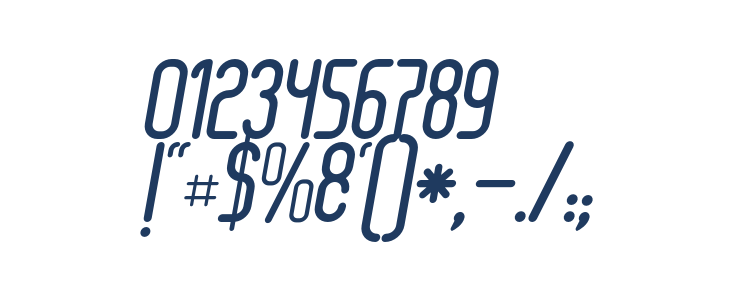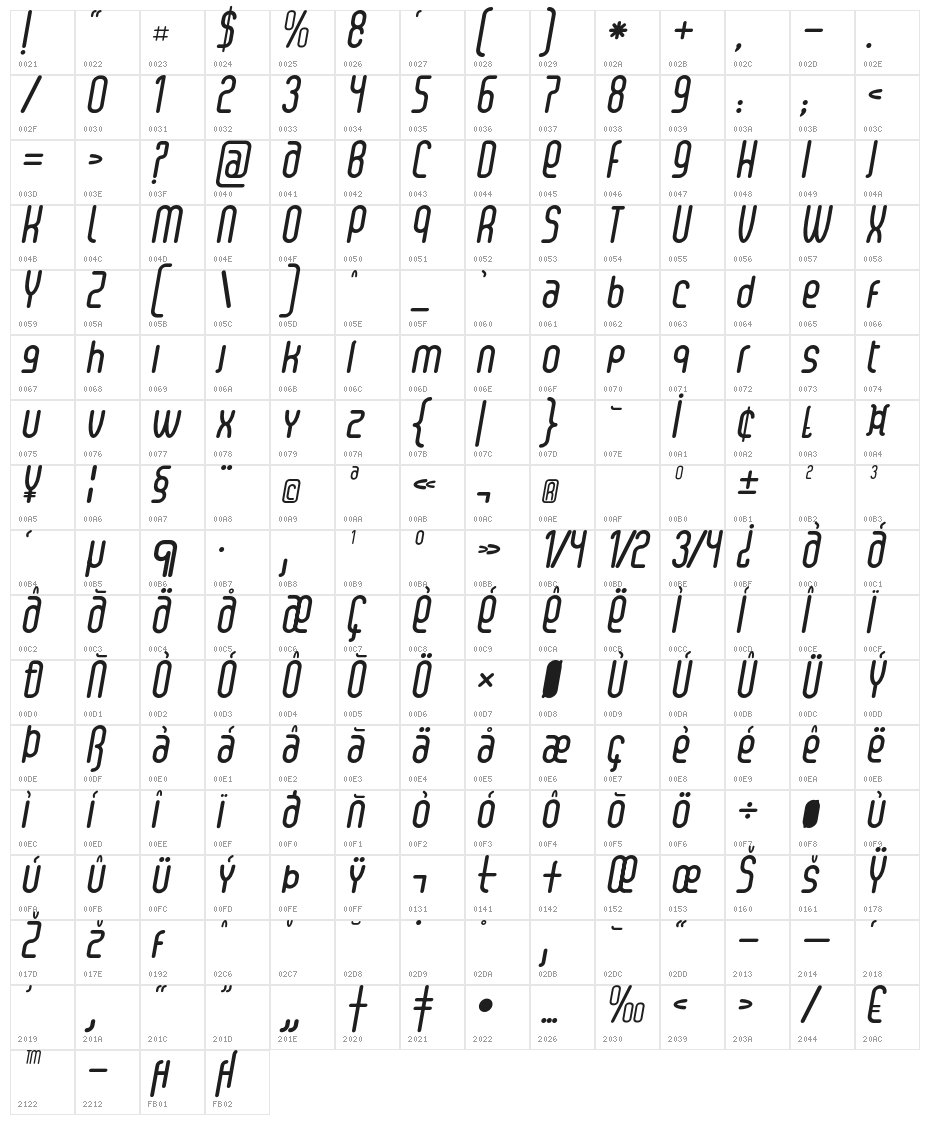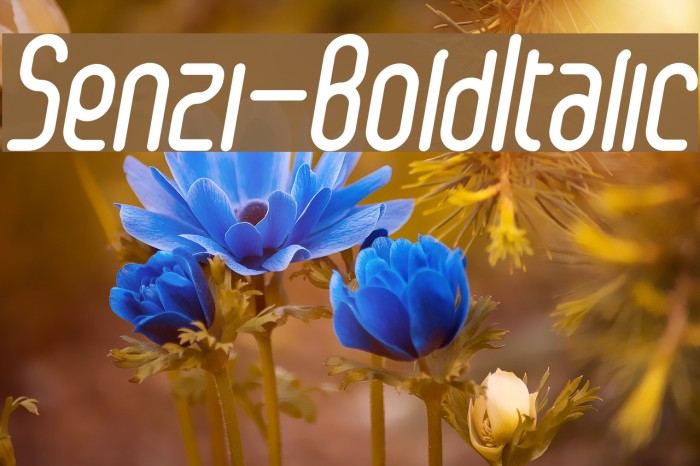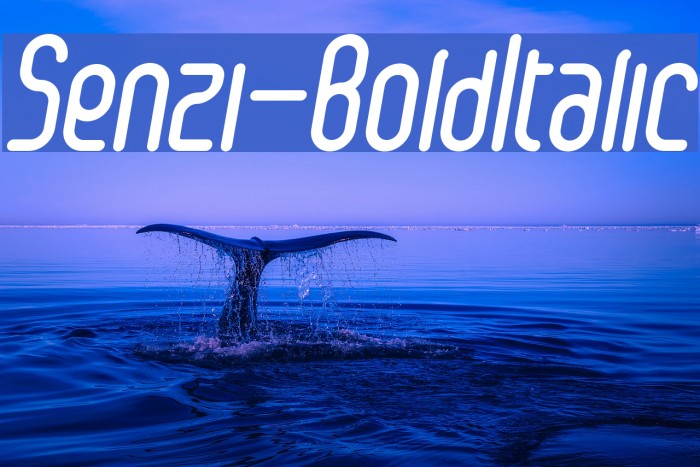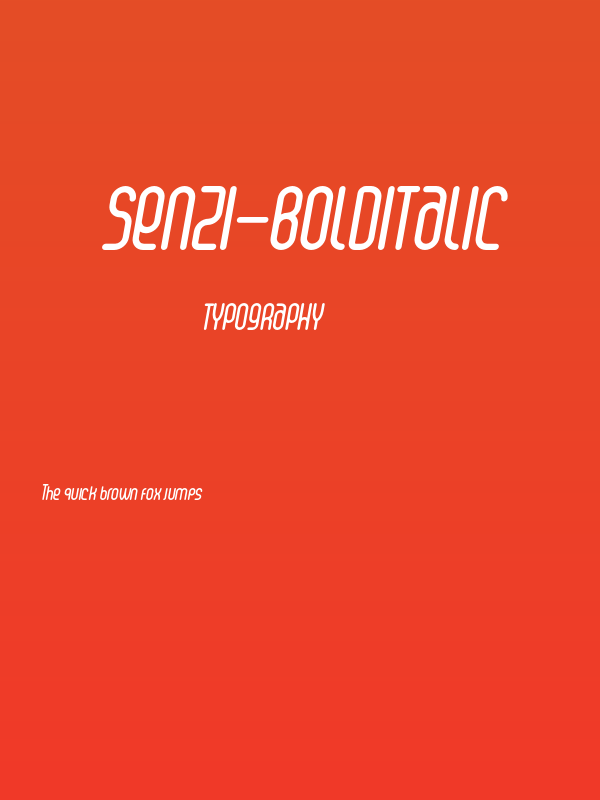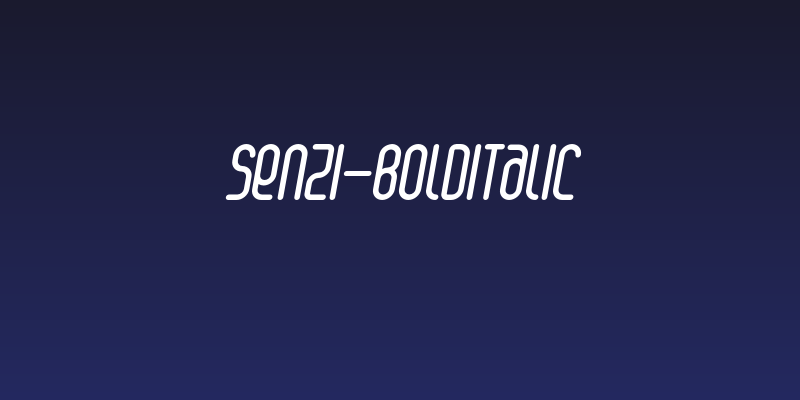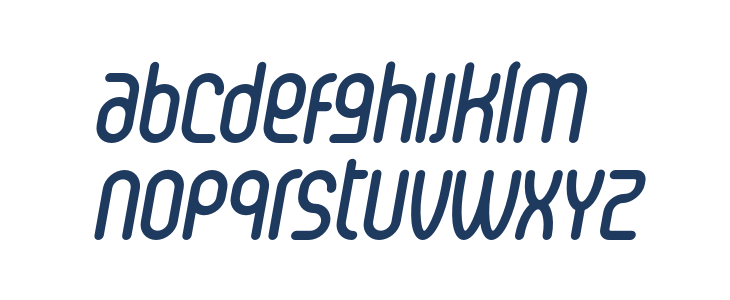
Senzi-BoldItalic Font
Senzi-BoldItalic Description
This font features a modern, sleek design with a bold and italicized style. The characters are elongated with rounded edges, giving it a contemporary and dynamic appearance. The uppercase and lowercase letters maintain a consistent flow, while the numerals and special characters complement the overall aesthetic. The font's smooth curves and uniform stroke width create a harmonious and visually appealing look, making it suitable for a variety of design applications.
| Proposed Projects | Ideal for branding, advertising, and editorial design projects where a modern and dynamic look is desired. |